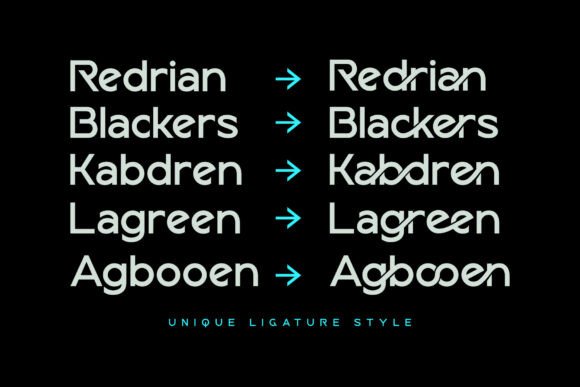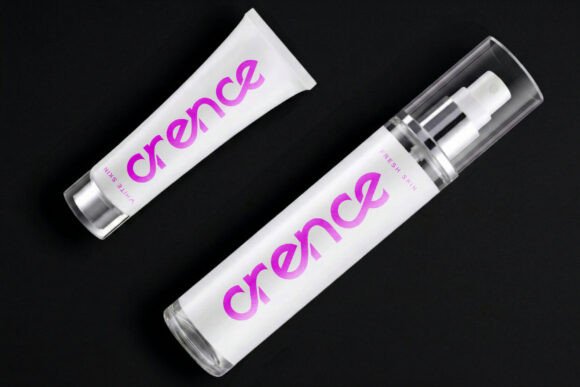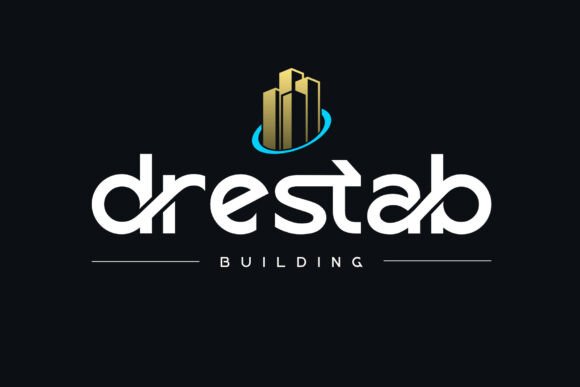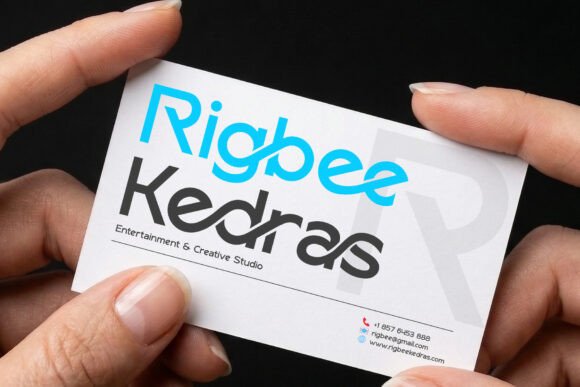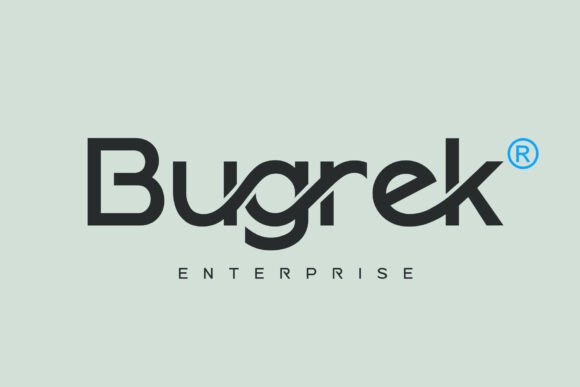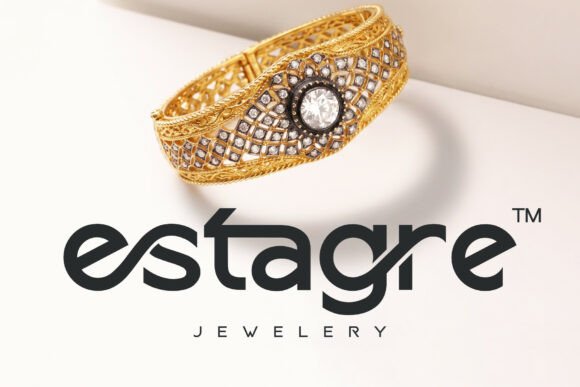
Introducing Gedbar Font: Elevate Your Brand Identity with a Striking Typeface
In the world of design, a font can make or break a brand’s identity. A well-crafted typeface can elevate your visual content, convey your message with clarity, and leave a lasting impression on your audience. This is where Gedbar Font comes into play – a modern, bold, and clean typeface designed to strengthen your brand’s visual presence.
The Power of Gedbar Font
Gedbar is more than just a font – it’s a design statement. With its sleek structure and confident personality, Gedbar is built to create visuals that instantly capture attention. Whether you’re a designer, craftsperson, or brand owner, Gedbar offers a versatile solution for anyone looking to enhance their visual content.
Key Features of Gedbar Font
- Clean Structure: Gedbar boasts a clean and organized design, making it perfect for body text, headings, and titles.
- Bold Personality: With its bold and confident appearance, Gedbar demands attention and makes a lasting impression.
- Versatility: Gedbar is suitable for a wide range of design applications, from branding and advertising to packaging and digital media.
- Legibility: Gedbar’s clear and readable design ensures that your message is conveyed with clarity, even at smaller font sizes.
Why Choose Gedbar Font?
With so many fonts available, why choose Gedbar? Here are a few compelling reasons:
- Unique Identity: Gedbar helps you stand out from the crowd with its distinctive design, giving your brand a unique voice.
- Flexibility: Gedbar’s versatility makes it suitable for various design applications, from print to digital media.
- Time-Saving: With Gedbar, you can create professional-looking designs quickly and efficiently, saving you time and effort.
- High-Quality: Gedbar is crafted with precision and attention to detail, ensuring a high-quality design that reflects your brand’s values.
Gedbar Font in Design Applications
Gedbar Font can be used in a variety of design applications, including:
- Branding: Use Gedbar as a primary font for your brand’s logo, website, and marketing materials.
- Advertising: Create eye-catching ads with Gedbar’s bold and attention-grabbing design.
- Packaging: Use Gedbar on product labels, packaging, and point-of-sale displays.
- Digital Media: Apply Gedbar to your website, social media graphics, and digital marketing campaigns.
In conclusion, Gedbar Font is a powerful design tool that can elevate your brand identity and visual content. With its clean structure, bold personality, and versatility, Gedbar is the perfect choice for designers, craftspersons, and brand owners looking to make a lasting impression.